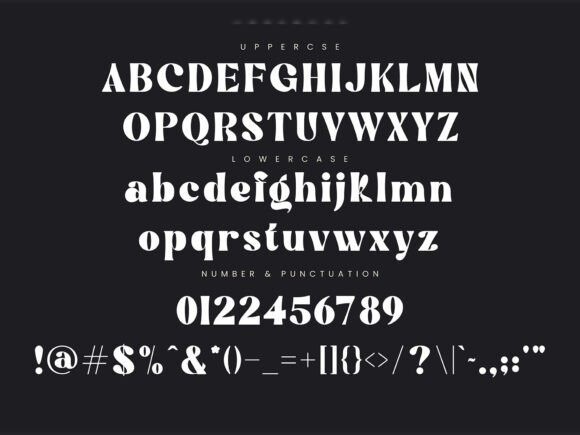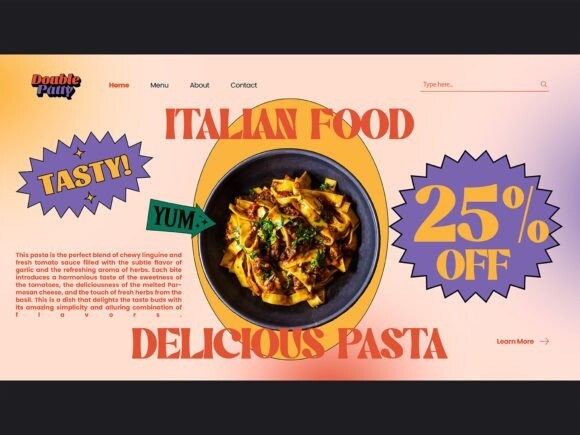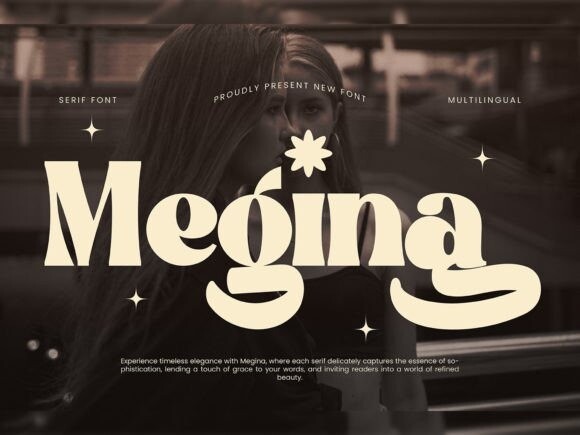
Megina Serif Font
Megina Font, where each serif delicately captures the essence of sophistication, lending a touch of grace to your words, and inviting readers into a world of refined beauty.